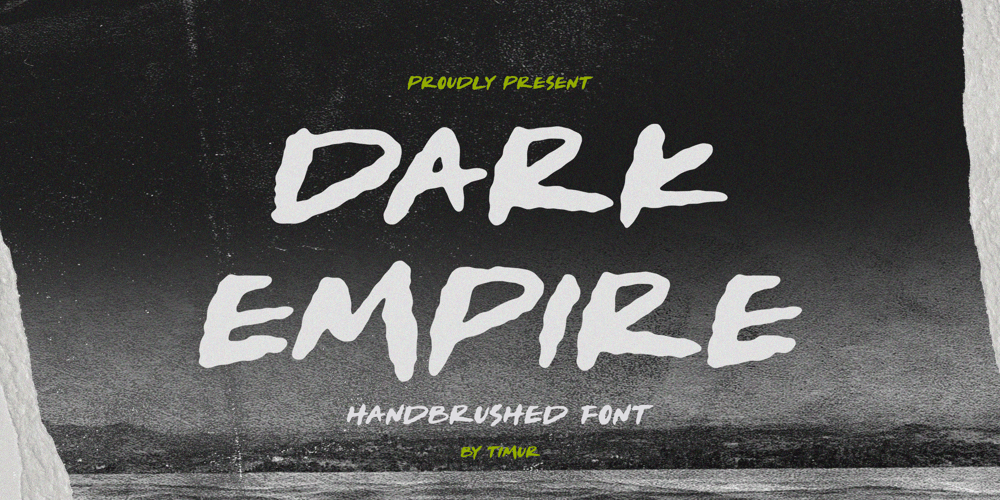
Dark Empire Font Family was designed by Wara Sigit Tri Pamungkas and published by Timurtype. Dark Empire contains 1 styles and family package options. Introduced by Timurtype Studio!Dark Empire is a Handbrushed Font This font exudes a raw and powerful energy that adds a bold and edgy touch to your designs. With its rough and textured brush strokes, this font captures the essence of rebelliousness and strength. The imperfect and grungy letterforms evoke a sense of darkness and mystery, making it ideal for projects that require a touch of intensity and intrigue. Whether used for posters, album covers, or branding materials, the Dark Empire font creates a captivating presence and demands attention. Embrace the dark and unleash your creative vision with this striking handbrushed fontDark Empire Font also supports multilingualism.Enhance your designs with our original fonts, feel free to comment or provide feedback, Enjoy the fonts 😊Thank You